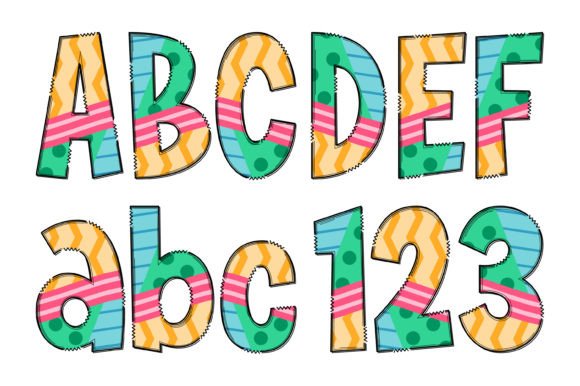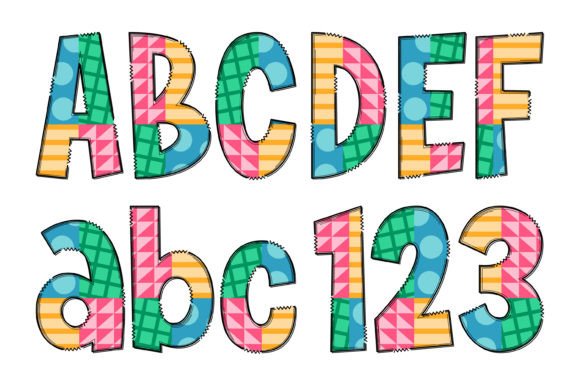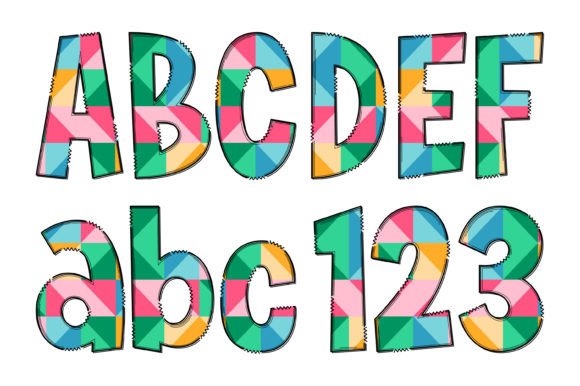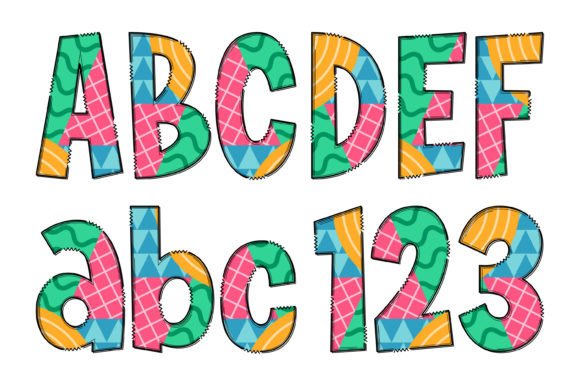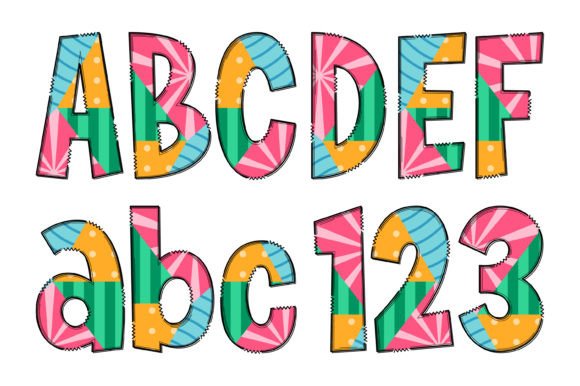
Introduction to Multicolor Geometric Bundle Font
Have you ever been in the middle of a creative project, rummaging through your design resources, searching for that perfect font to bring your vision to life? I’m sure many of us have been there, staring at a blank page, waiting for inspiration to strike. That’s exactly what happened when I discovered the Multicolor Geometric Bundle Font – a game-changer for designers seeking a playful and artistic feel.
This color font is a treasure trove of creativity, offering a whimsical and colorful experience that’s perfect for young audiences. With its easy-to-read design, the Multicolor Geometric Bundle Font makes for an engaging reading experience that’s hard to resist. Whether you’re designing children’s books, posters, invitations, or greeting cards, this font is sure to add a touch of magic to your work.
Key Features of Multicolor Geometric Bundle Font
- High-quality multicolor geometric font bundle with a wide range of styles and designs, perfect for creative projects and design resources.
- Perfect for designers, artists, and creatives looking for a unique and versatile design resource for their next project.
- Each font style can be easily customized and edited using popular design software, making it a valuable asset for any creative project.
Honest Review: Multicolor Geometric Bundle Font
As a designer, I’m always on the lookout for high-quality design resources to elevate my creative projects. The Multicolor Geometric Bundle Font has been a game-changer for me, offering a unique and versatile font that’s perfect for a wide range of applications.
Here are some of the things that work well for me:
- ✨ High-quality design: The font is meticulously crafted, with intricate geometric patterns that add a touch of sophistication to any design.
- ✨ Versatility: The font comes in a range of colors and styles, making it perfect for use in everything from logos to social media graphics.
- ✨ Easy to use: The font is highly customizable, with a transparent background that makes it easy to integrate into any design.
- ⚠️ Limited font sizes: While the font is available in a range of colors and styles, the font sizes are somewhat limited, which can make it difficult to use in certain applications.
- ⚠️ Not suitable for small text: Due to its intricate design, the font is not ideal for use in small text or fine details.
Overall, I’m thoroughly impressed with the Multicolor Geometric Bundle Font. While it has a few limitations, its unique design and versatility make it a valuable addition to any designer’s toolkit. Plus, it’s available as a free download, making it a must-have resource for any creative project.
Tips for Getting the Most Out of the Multicolor Geometric Bundle Font
For a creative project, consider combining the Multicolor Geometric Bundle Font with other design resources, such as graphics and illustrations. Experiment with different colors and styles to achieve a unique look. To ensure high-quality results, use a high-resolution image as the background.
The Multicolor Geometric Bundle Font is ideal for a variety of creative projects, including social media graphics, posters, and infographics. It is also a great design resource for branding and marketing materials, such as business cards and brochures. With its high-quality design and transparent background, the Multicolor Geometric Bundle Font is a versatile and free download that can elevate any design project.